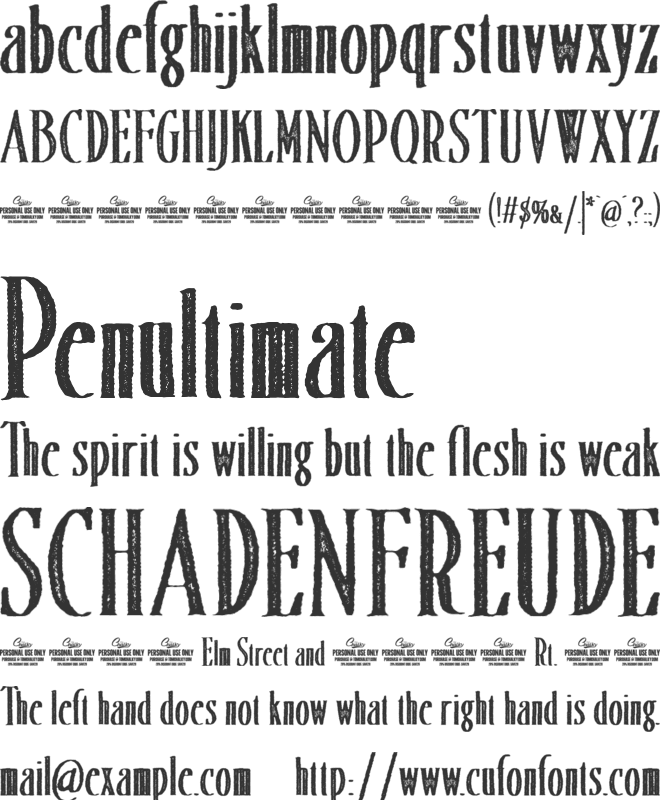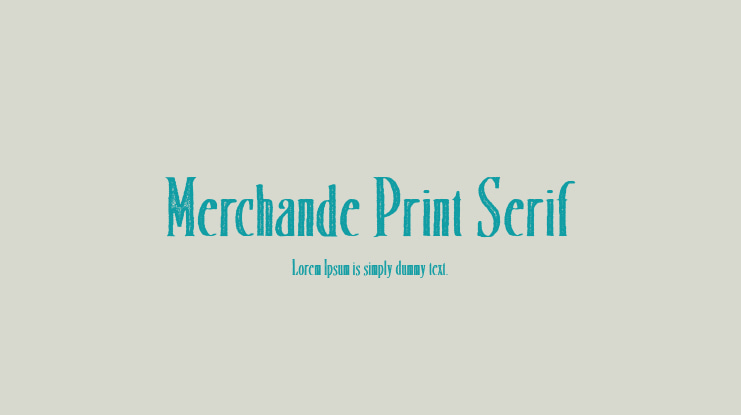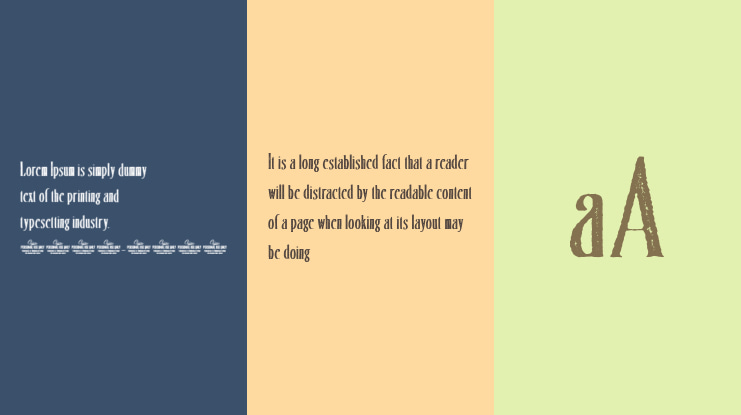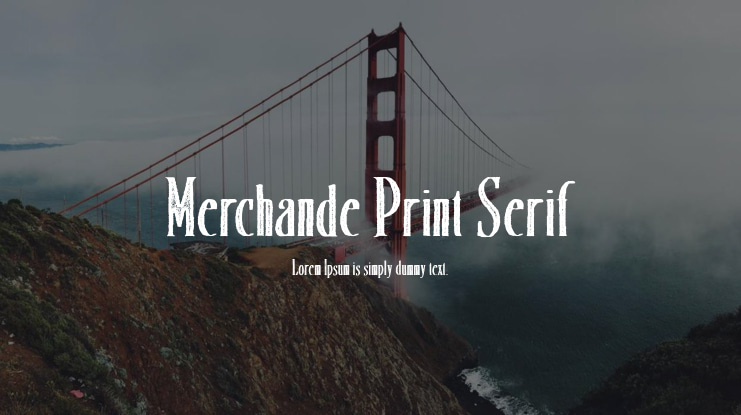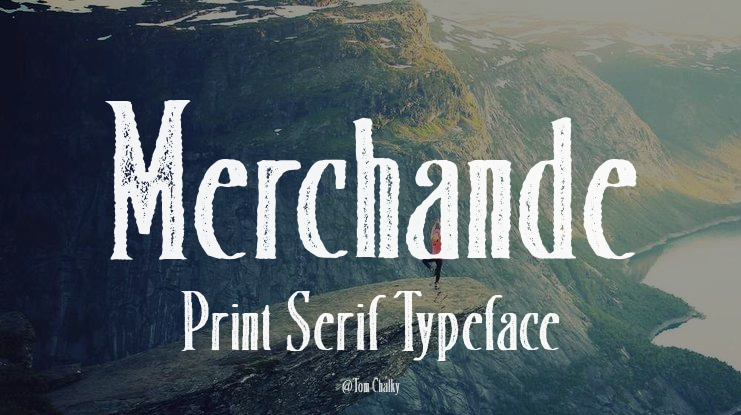
Merchande Print Serif Font
Tom Chalky
ABOUT THE FONT: Vintage charm meets modern finesse with Merchande Print, the textured evolution of the popular Merchande Trio. Drawing inspiration from a plethora of mid-century typefaces, Merchande Print bridges the gap between nostalgia and contemporary design. Whether it’s elevating your brand's aesthetic, giving depth to your packaging, or infusing character into your advertising and print endeavors, Merchande Print is designed to deliver a touch of the artisanal to every word. Dive into the collection and let your creative projects resonate with a genuine textured typographic experience.